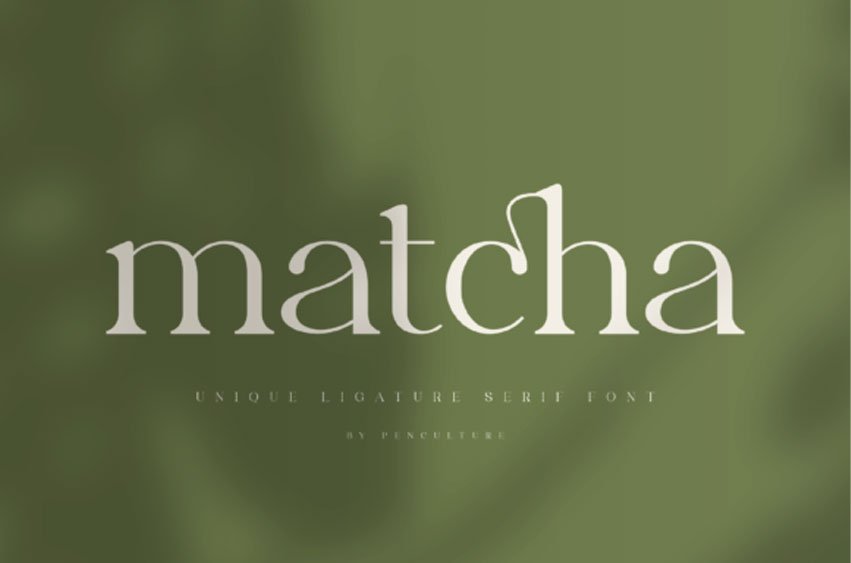
Matcha Font
Matcha Font is modern and adaptable serif font.
It has a unique ligature which you can create in your project designs such as branding, logo designs, magazines and more.